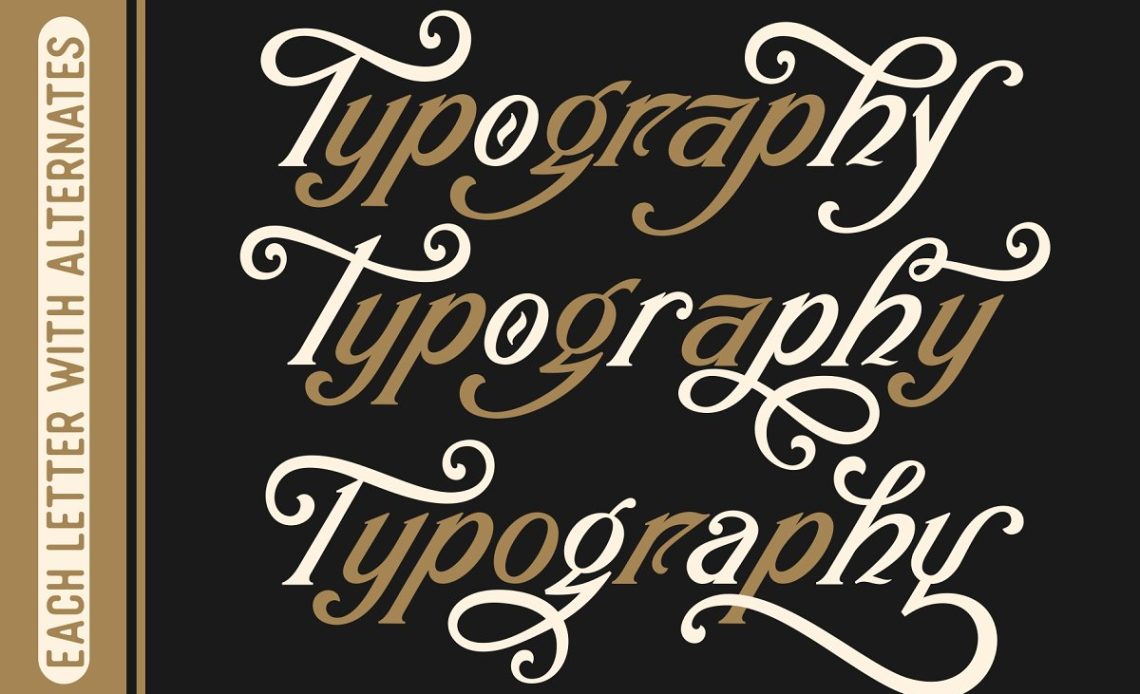
Bandoeng Font was inspired by the cover of the 1920 Nebiolo book.
It is perfect for product logo, signage, branding projects, headlines, posters, packaging, clothing brand logos, Vintage design and much more.
A wide range of standart ligatures, alternate characters, as well as four different weights allow unique design options!
The Features includes: Stylistic Alternates, Swashes, Ligatures, and Stylistic Set 01-10